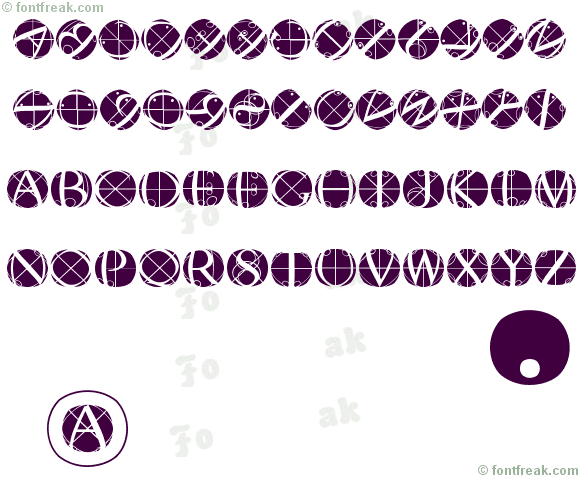
RodauButtonsInverse
About RodauButtonsInverse
RodauButtonsInverse by Manfred Klein is a unique display font that combines playful aesthetics with a modern twist. This typeface falls under the decorative category, showcasing a bold and striking visual style that immediately captures attention. The font features rounded forms with a distinctive geometric flair, enhanced by intricate decorative elements that create a sense of depth and character. The stroke weight is consistent, providing a balanced look, while the spacing between letters is thoughtfully designed to ensure readability without sacrificing style.
This font is particularly well-suited for a variety of creative projects. It can be effectively used in wedding invitations, where its whimsical design adds a touch of elegance and charm. Additionally, RodauButtonsInverse is ideal for movie posters, lending a contemporary edge that can draw in audiences. Restaurant menus can also benefit from the font’s playful nature, making dishes appear more inviting and enhancing the overall dining experience. Other applications include branding materials for small businesses looking to establish a distinctive identity and eye-catching social media graphics for content creators aiming to stand out.
The target audience for RodauButtonsInverse includes graphic designers, small business owners, and content creators who seek a font that combines creativity with functionality. Its versatility and unique design make it an appealing choice for those looking to make a statement in their projects.
What sets RodauButtonsInverse apart is its ability to blend fun with professionalism, making it a standout choice in the realm of decorative fonts. For anyone in search of a dynamic typeface, the RodauButtonsInverse font free download provides an excellent opportunity to elevate design work to new heights.